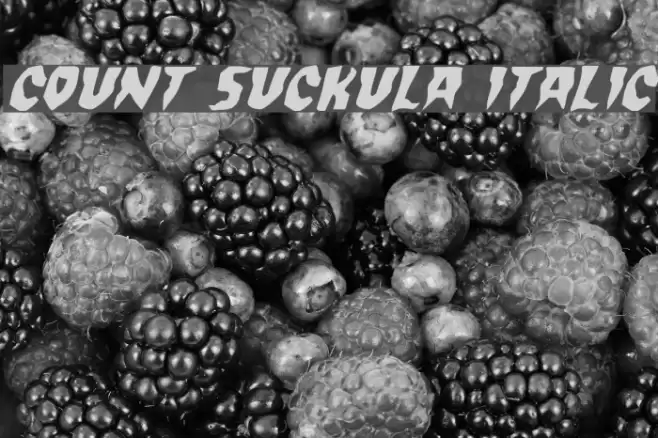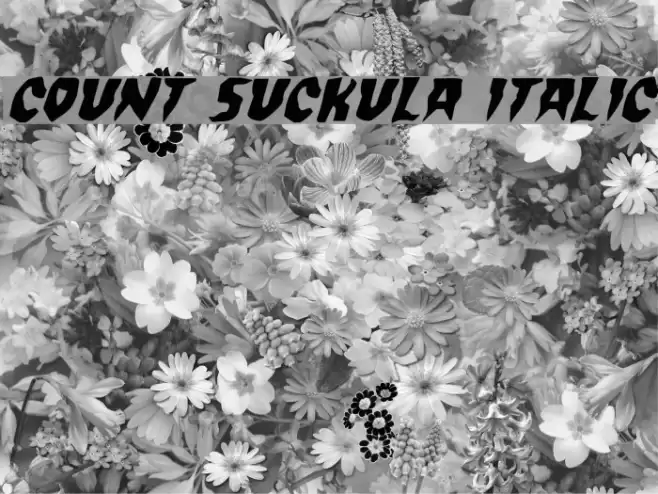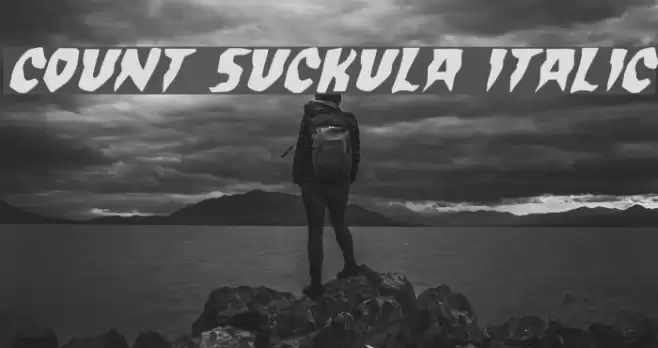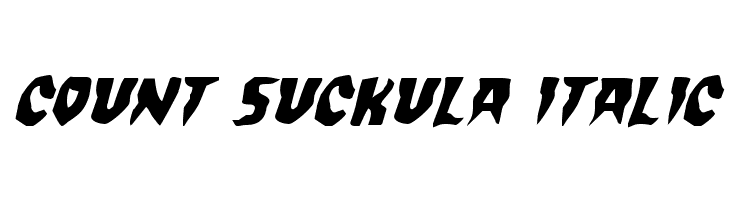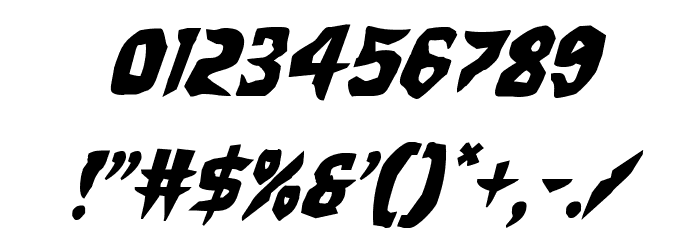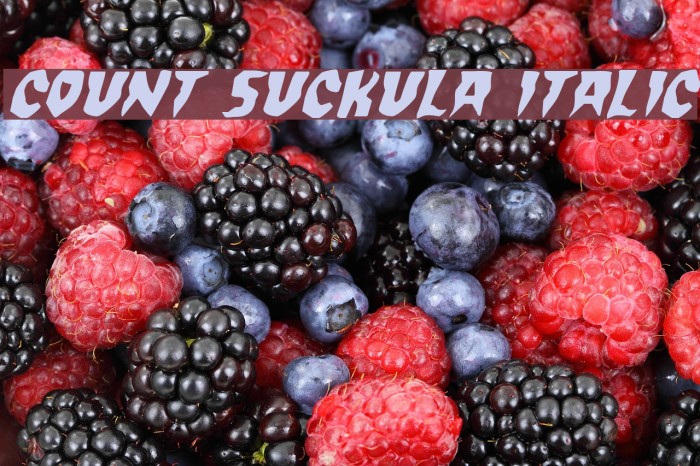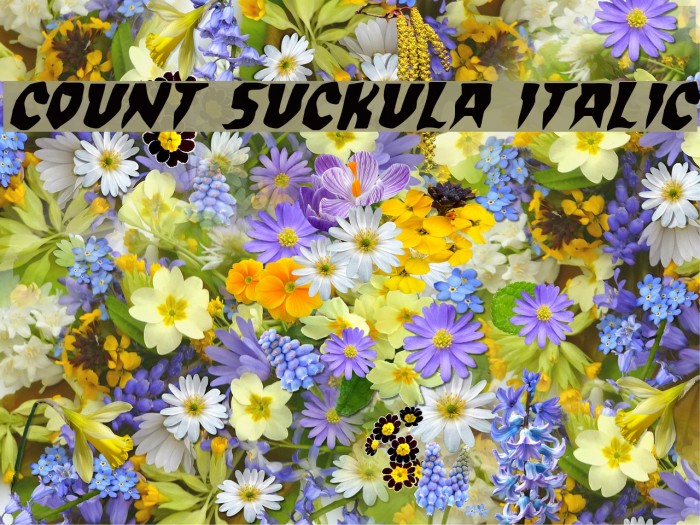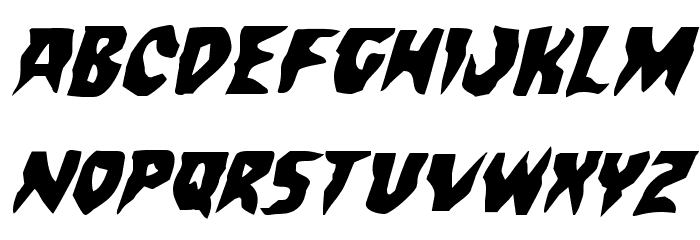
Count Suckula Italic Font
Count Suckula Italic Description
This font features a bold and dynamic style with sharp, angular edges and a slightly slanted orientation, giving it an italicized appearance. The characters are thick and robust, with a high contrast between the strokes, creating a dramatic and eye-catching effect. The uppercase and lowercase letters maintain a consistent style, while the numerals and special characters complement the overall aesthetic. This font's unique design makes it suitable for projects that require a strong visual impact.
A bold, italicized font with sharp, angular edges and high contrast from Horror fonts.
- Proposed Projects: Ideal for horror-themed posters, Halloween invitations, edgy branding, or any project needing a dramatic flair.